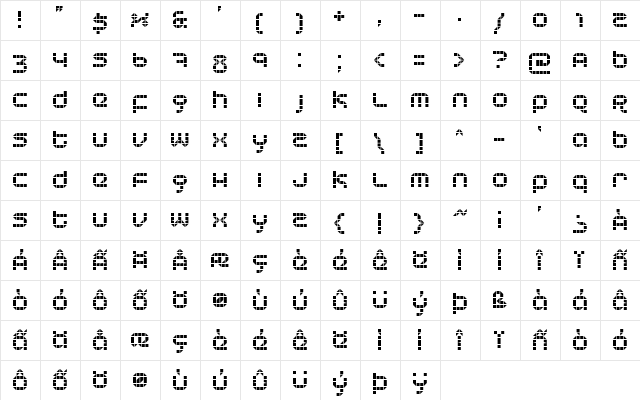
Tranceform Regular
| Designer | Andreas M. Nylin |
Design Context for Tranceform Typeface
Tranceform is a composed and adaptable typeface that performs quietly and consistently across a wide range of design contexts.